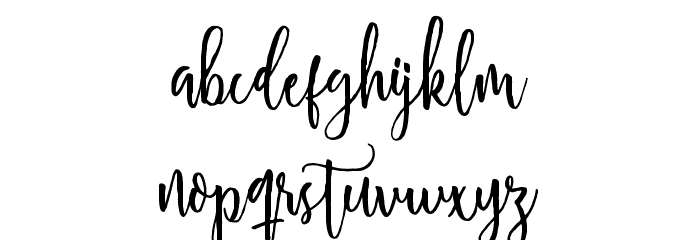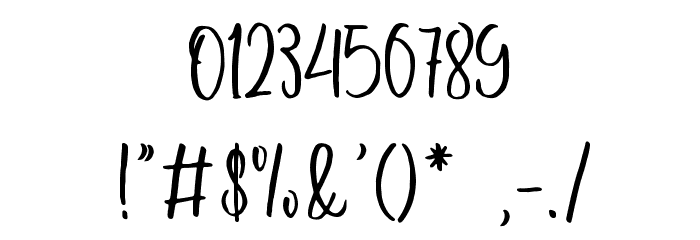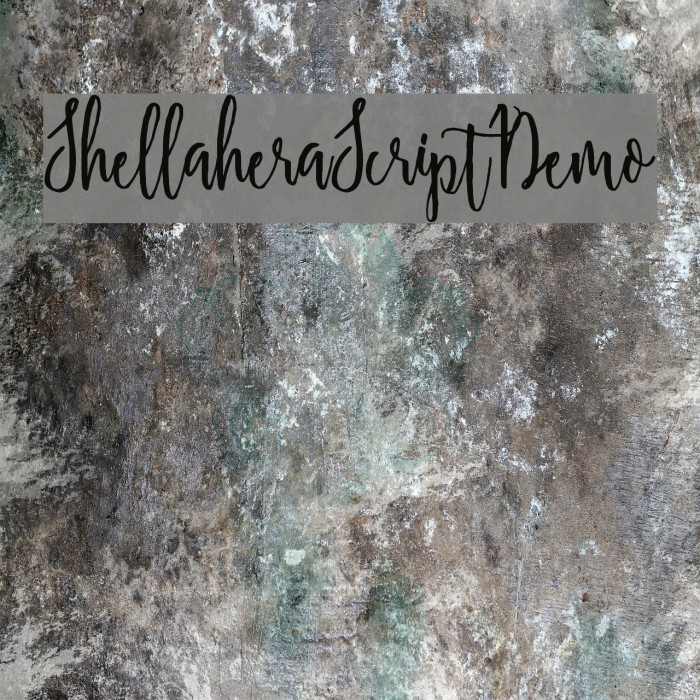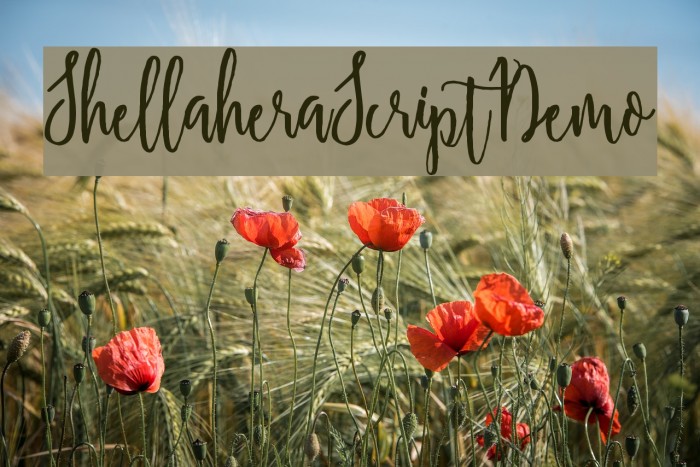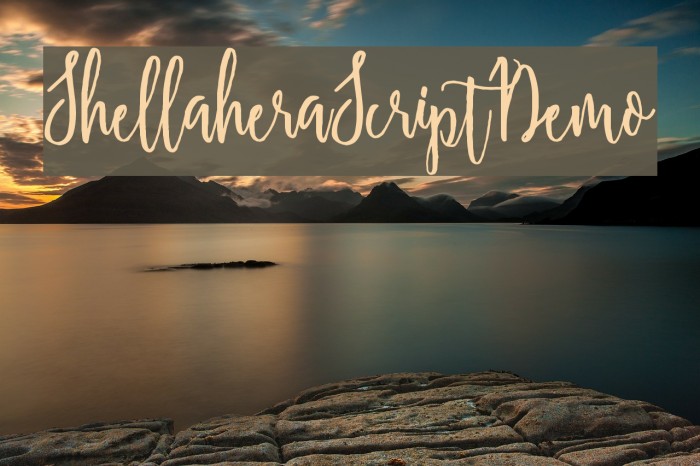
ShellaheraScriptDemo Font
This elegant script font exudes a sense of sophistication and fluidity, characterized by its flowing, cursive strokes and graceful curves. The uppercase letters are bold and prominent, with a slight slant that adds a dynamic feel. The lowercase letters are more delicate, featuring intricate loops and swashes that enhance the font's decorative appeal. The numerals are consistent with the overall style, maintaining the same fluidity and elegance. Special characters are thoughtfully designed to complement the alphabet, ensuring a cohesive look across all text. This font is perfect for projects that require a touch of elegance and personality, such as wedding invitations, branding, and greeting cards.
An elegant and flowing script font with bold uppercase and delicate lowercase letters.
- Proposed Projects: Ideal for wedding invitations, branding, greeting cards, and elegant stationery.
- Category: Script
- Use Case: Logos, Headlines, Invitations